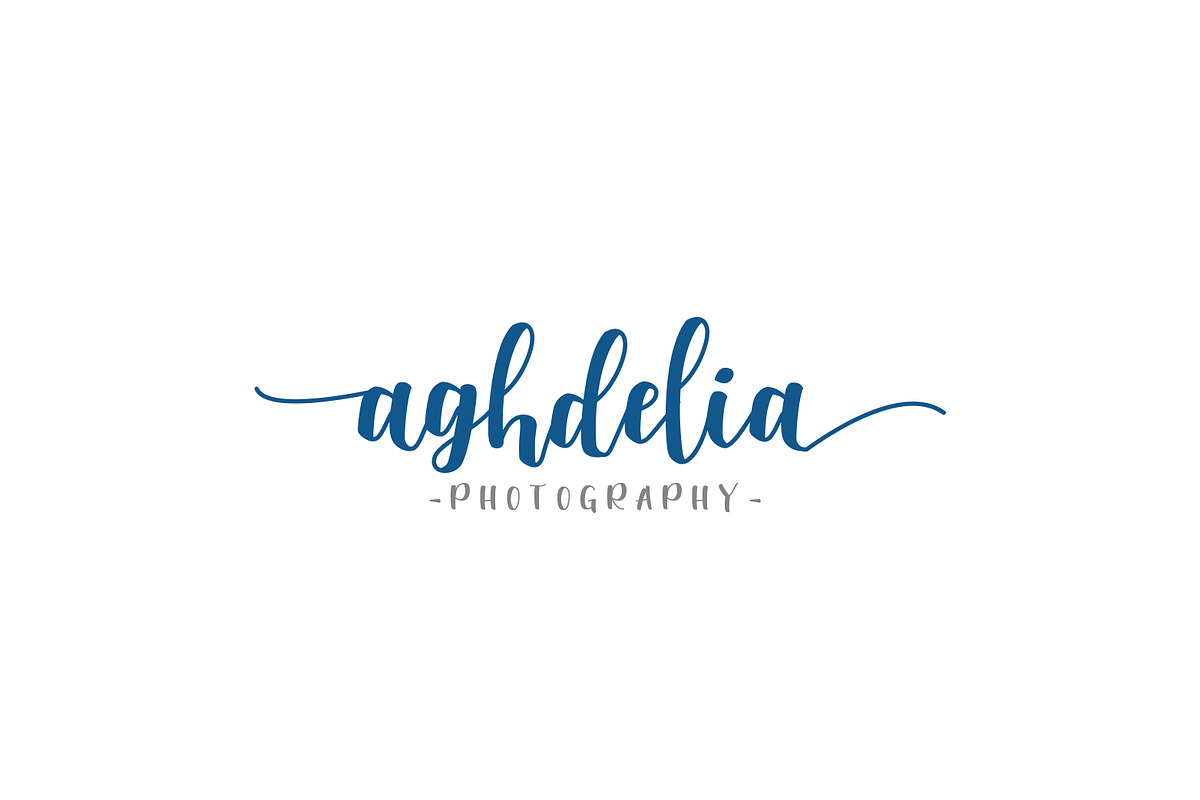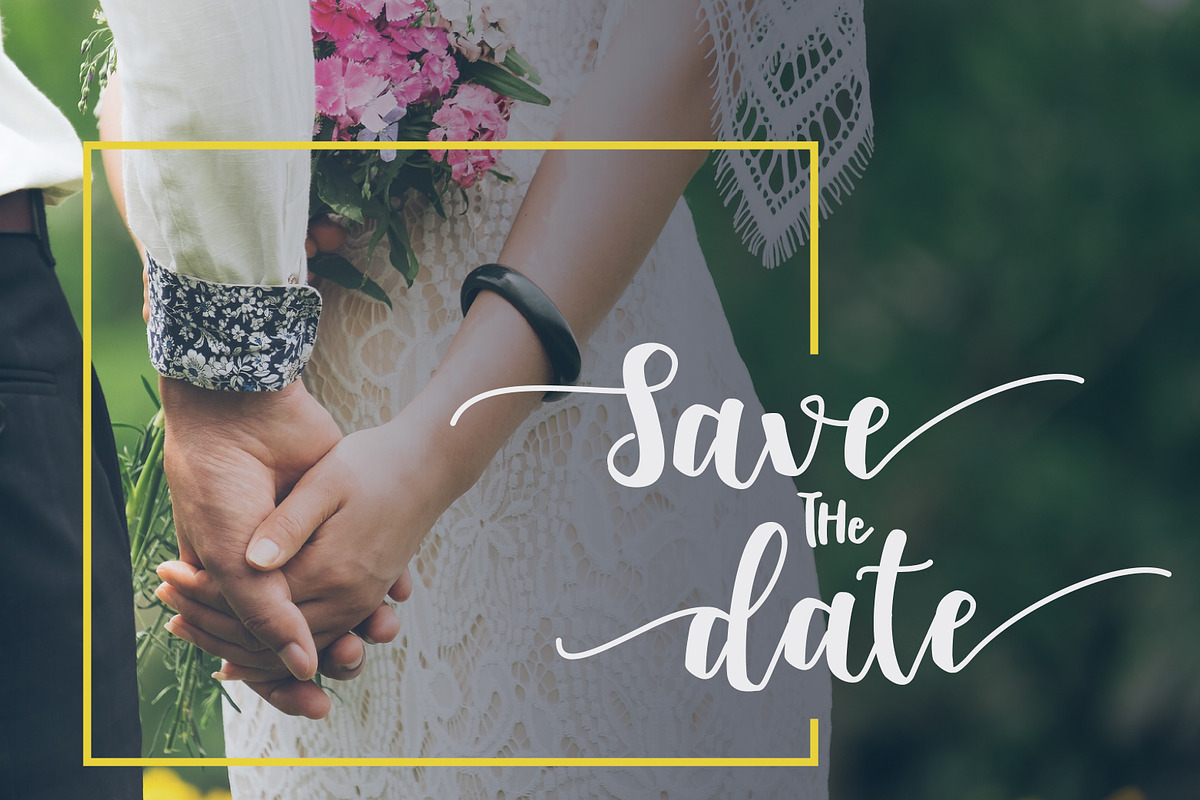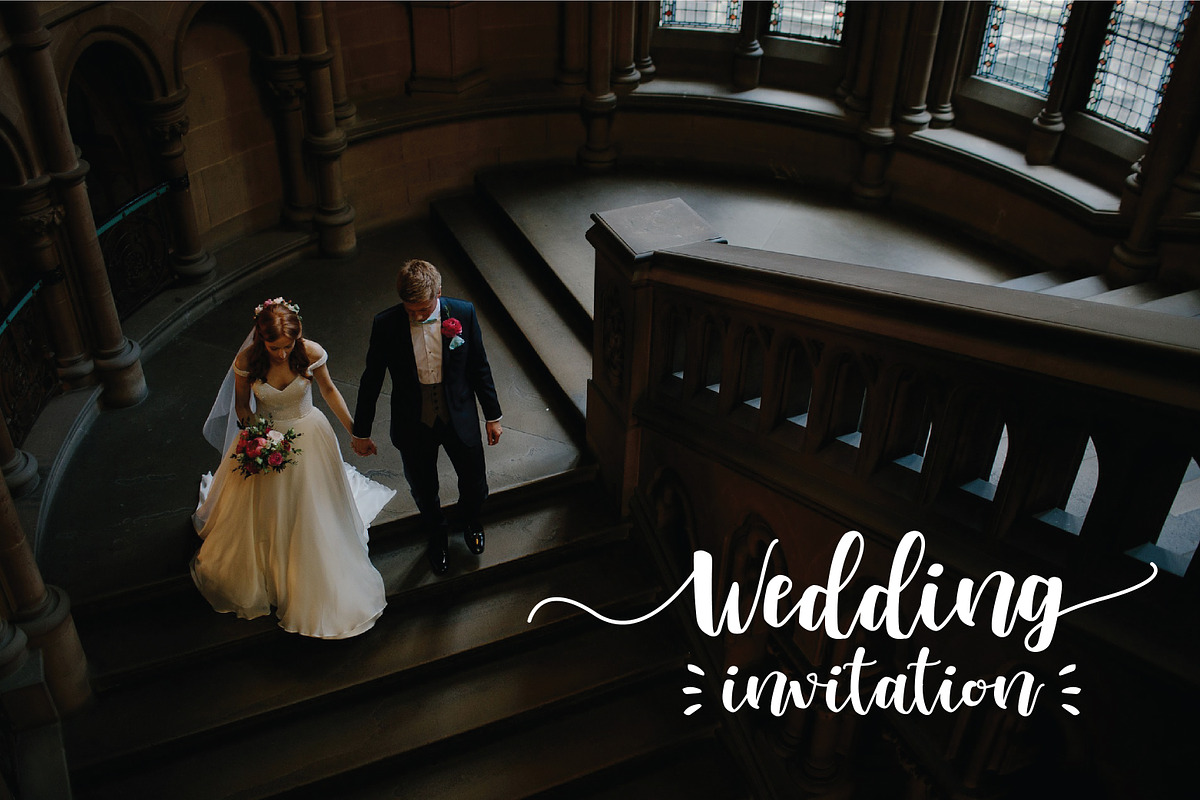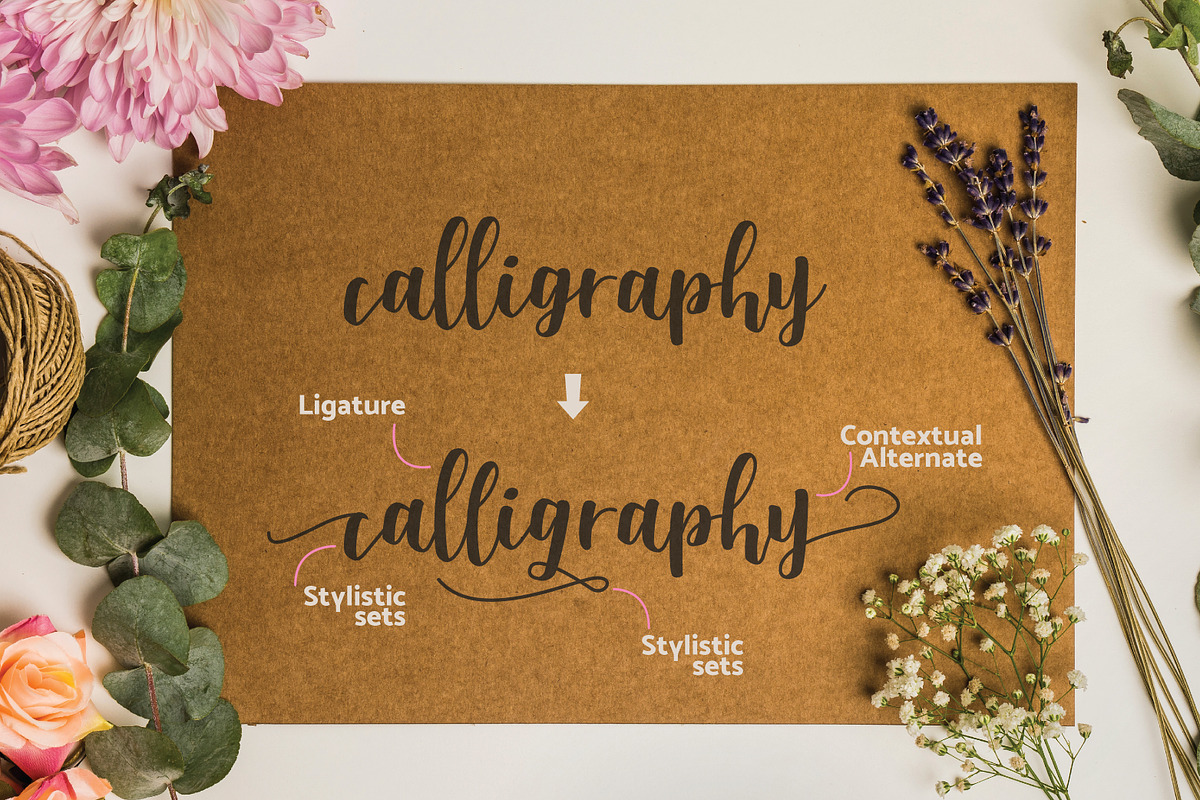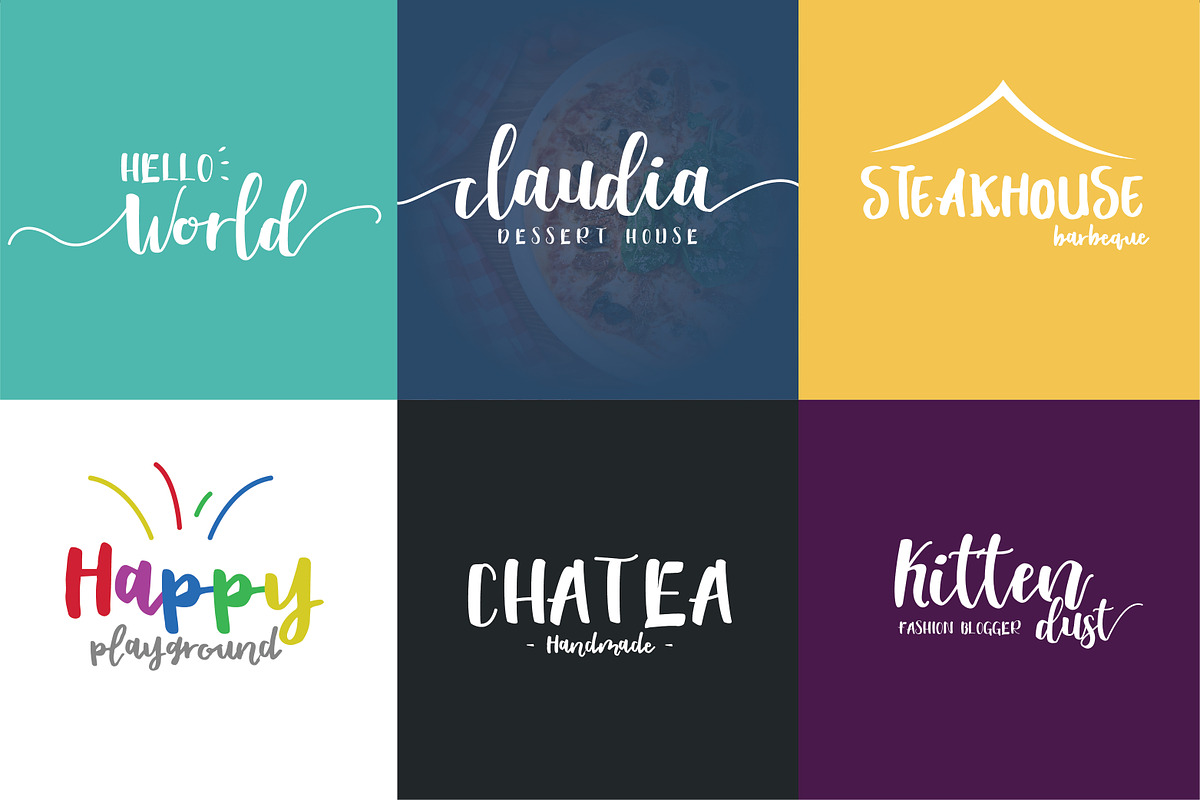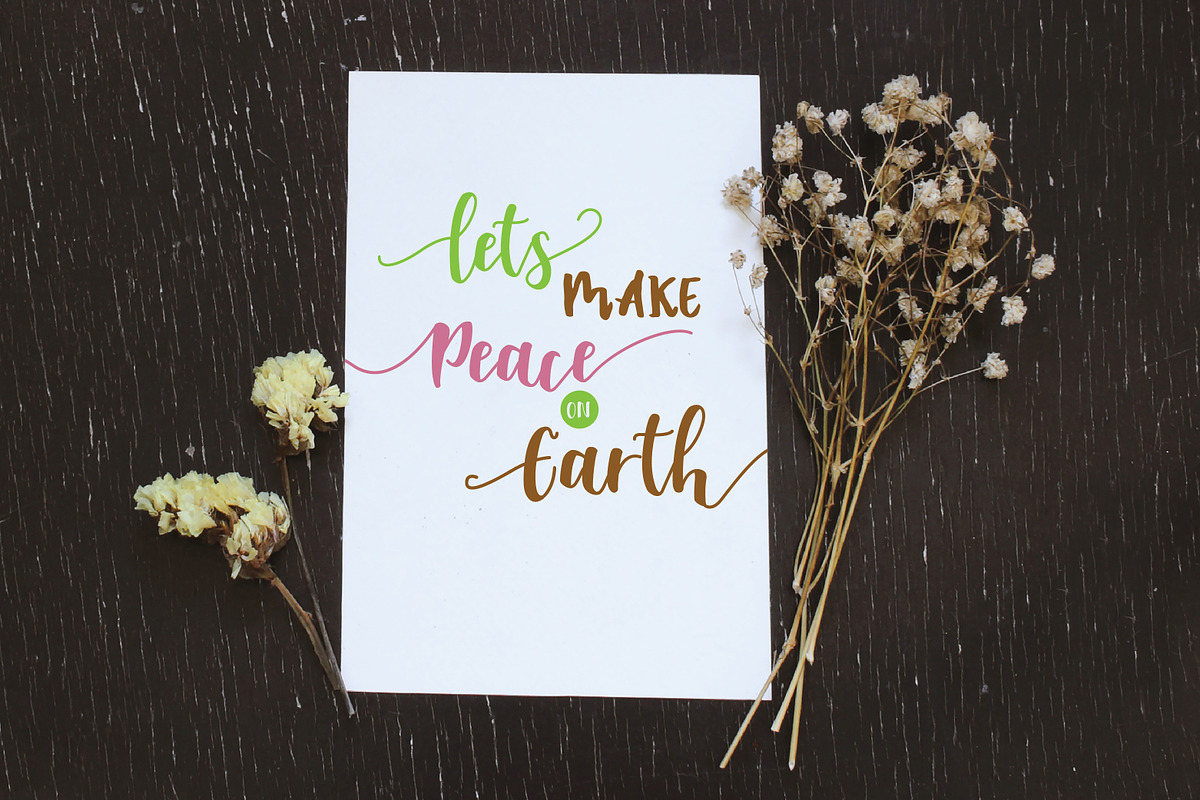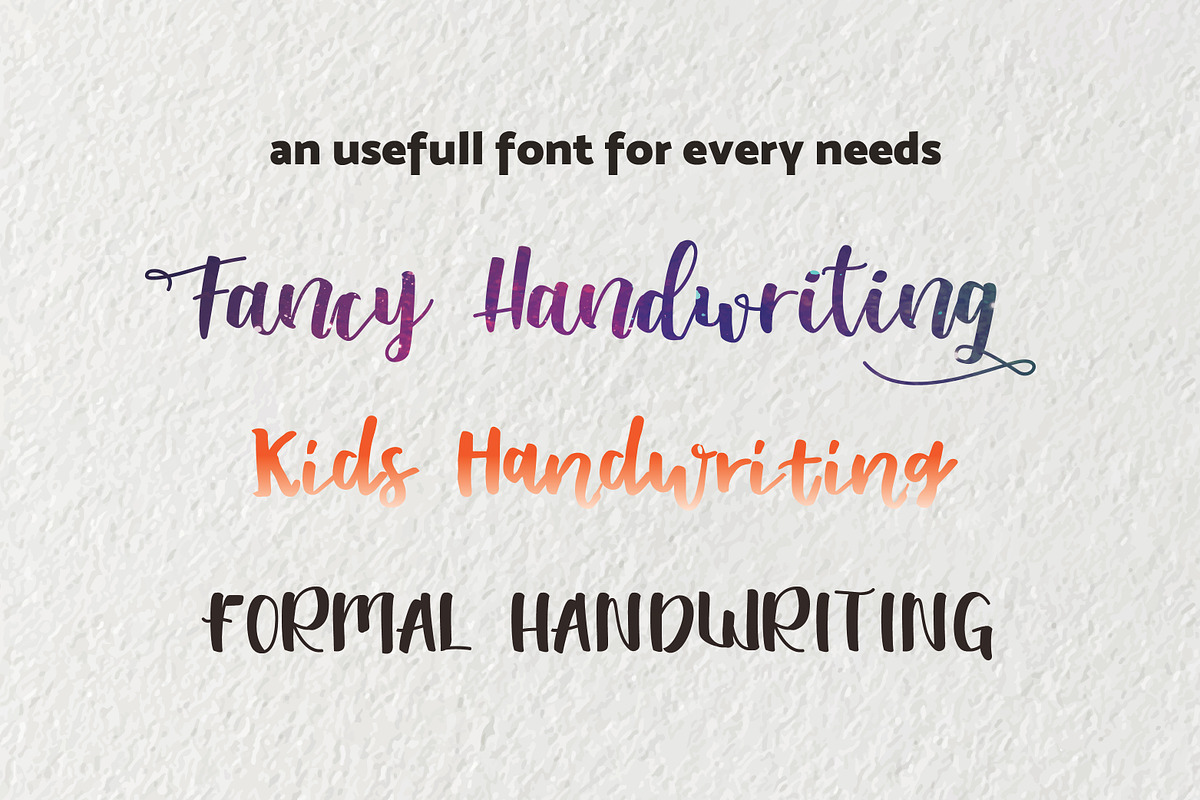
Shella Font Trio
Shella Font Trio . A hand brushed, fun, warm, and cozy typeface duo with 3 different fonts style. Shella Clean font combines with the Shella sans or Shella rough font to make each word unique. Suitable for any design needs, modern invitation design, branding, stationery design, blog design, modern advertising design, invitation, Art Quote, Home decor, Book/Cover Title, Invitation, special events, birthday, custom mug, pillow, t-shirts, any brush lettering needs and more.
Shella Clean ( ttf and otf ) - a clean hand brused script font comes with upper and lowercase Standard Characters, Punctuation,Multilingual Characters, Numerals. And other Glyphs variation of the OpenType features such as Stylistic Alternates, Stylistic Sets and some Ligatures. Each alphabet have a stylistic sets ( some have more than 1), All lowercase have a contextual alternate to put at the end of the word
Shella Rough ( ttf and otf ) a textured hand brused font containing uppercase and lowercase characters, punctuation, numerals.
Shella Sans ( ttf and otf ) a hand writing font containing uppercase only characters, punctuation, numerals.